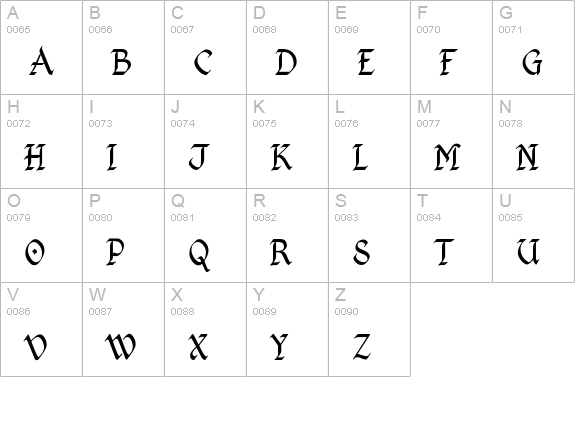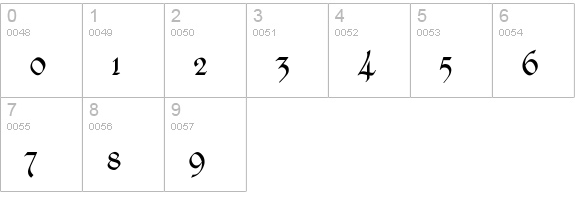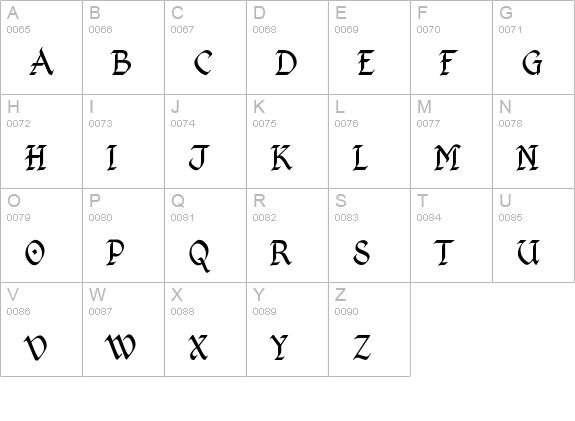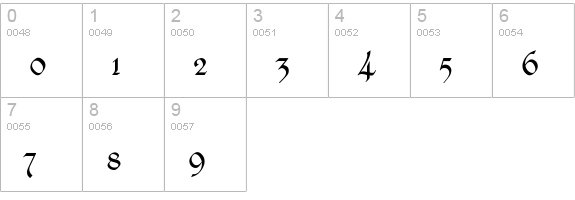
Kingthings Calligraphica Light is a refined, elegant variant in the Kingthings typeface family \xE2\x80\x94 well suited to elegant body text, refined sub-headings, and luxury branding.
Kingthings Calligraphica Light is a beautifully crafted font that exudes elegance and sophistication. With its delicate strokes and graceful curves, this font captures the essence of calligraphy in a modern and refined way. It is the perfect choice for any project that requires a touch of artistry and finesse. What sets Kingthings Calligraphica Light apart is not just its exquisite design, but also the fact that it is absolutely free. Yes, you read that right! This stunning font is freely available to download at FontsMarket.com, ensuring that anyone can add a touch of elegance to their designs without breaking the bank. Whether you're creating wedding invitations, branding materials, or simply adding a touch of class to your personal projects, Kingthings Calligraphica Light is a font that is sure to impress. Its versatility allows it to be used in various contexts, from formal events to creative endeavors, making it a valuable addition to any designer's toolbox. The attention to detail in Kingthings Calligraphica Light is evident in every letterform. From the perfectly balanced flourishes to the intricately designed ligatures, this font showcases the skill and craftsmanship of its creator. Each character flows seamlessly into the next, creating a harmonious and visually pleasing composition. Not only does Kingthings Calligraphica Light offer beauty and elegance, but it also provides readability and legibility. The carefully crafted letterforms ensure that your message is clear and easily understood, while still retaining a sense of artistic flair. So why wait? Download Kingthings Calligraphica Light for free at FontsMarket.com and elevate your designs to new heights. Whether you're a professional designer or a passionate hobbyist, this font is a must-have in your collection. With its timeless beauty and accessibility, Kingthings Calligraphica Light is sure to leave a lasting impression on anyone who encounters it.